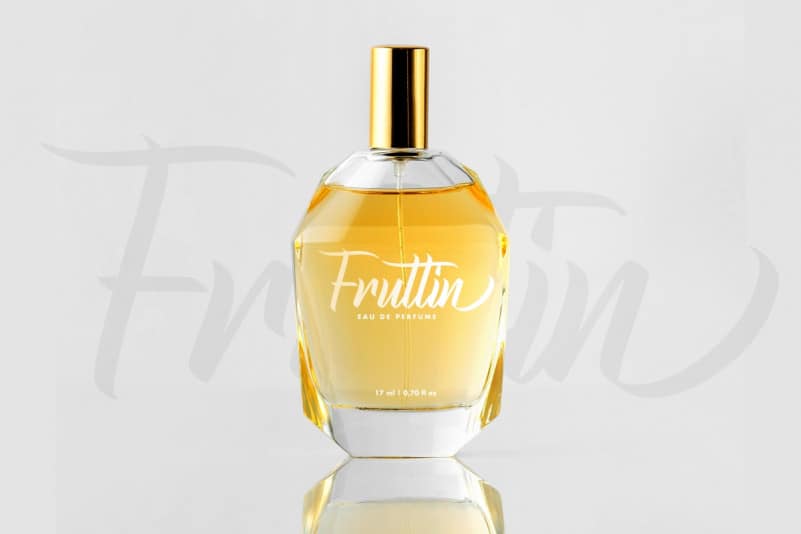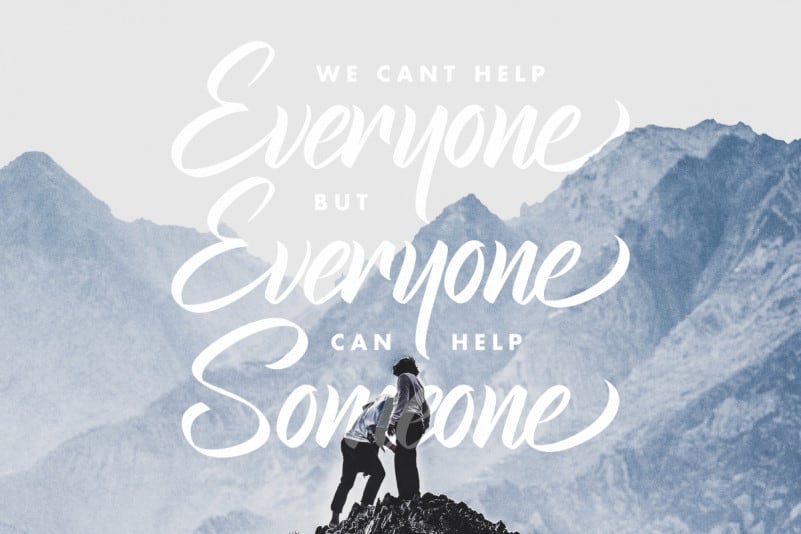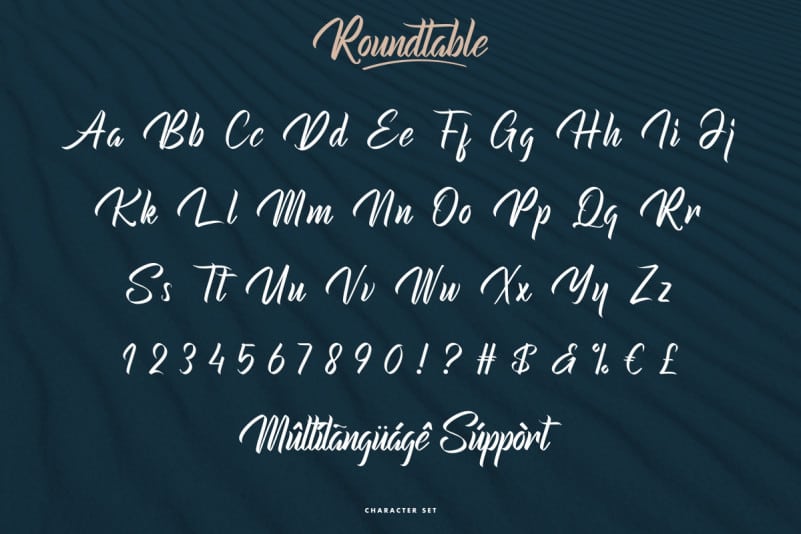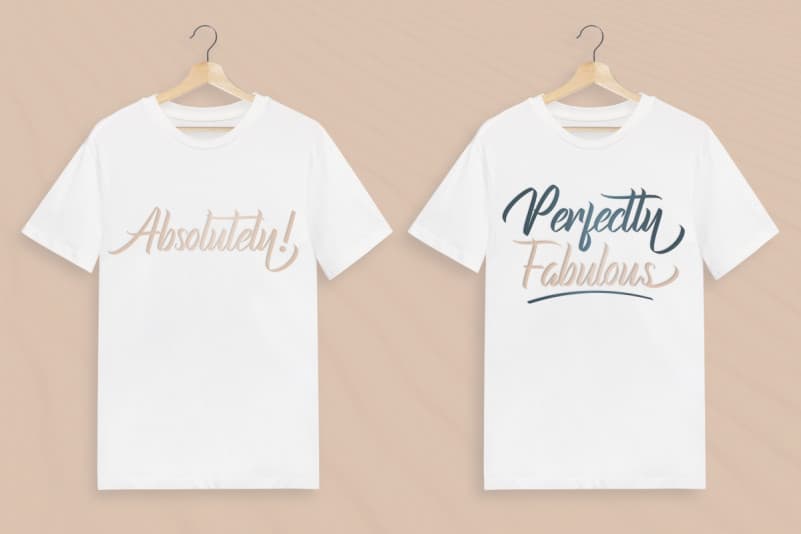
Roundtable Calligraphy Font
Roundtable Calligraphy Font is an original brush calligraphy font. The style of this font are stylish, classic, elegant, luxury and strong brush font.